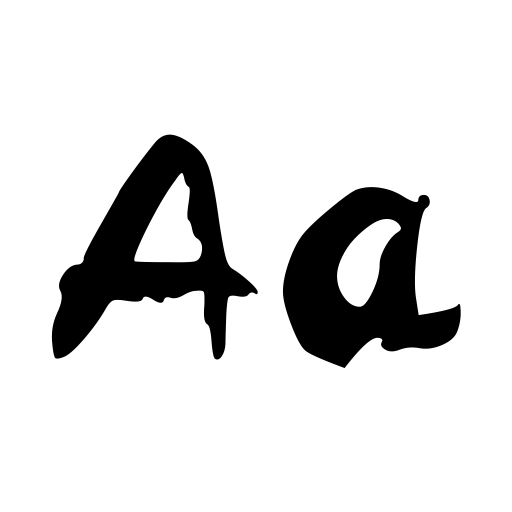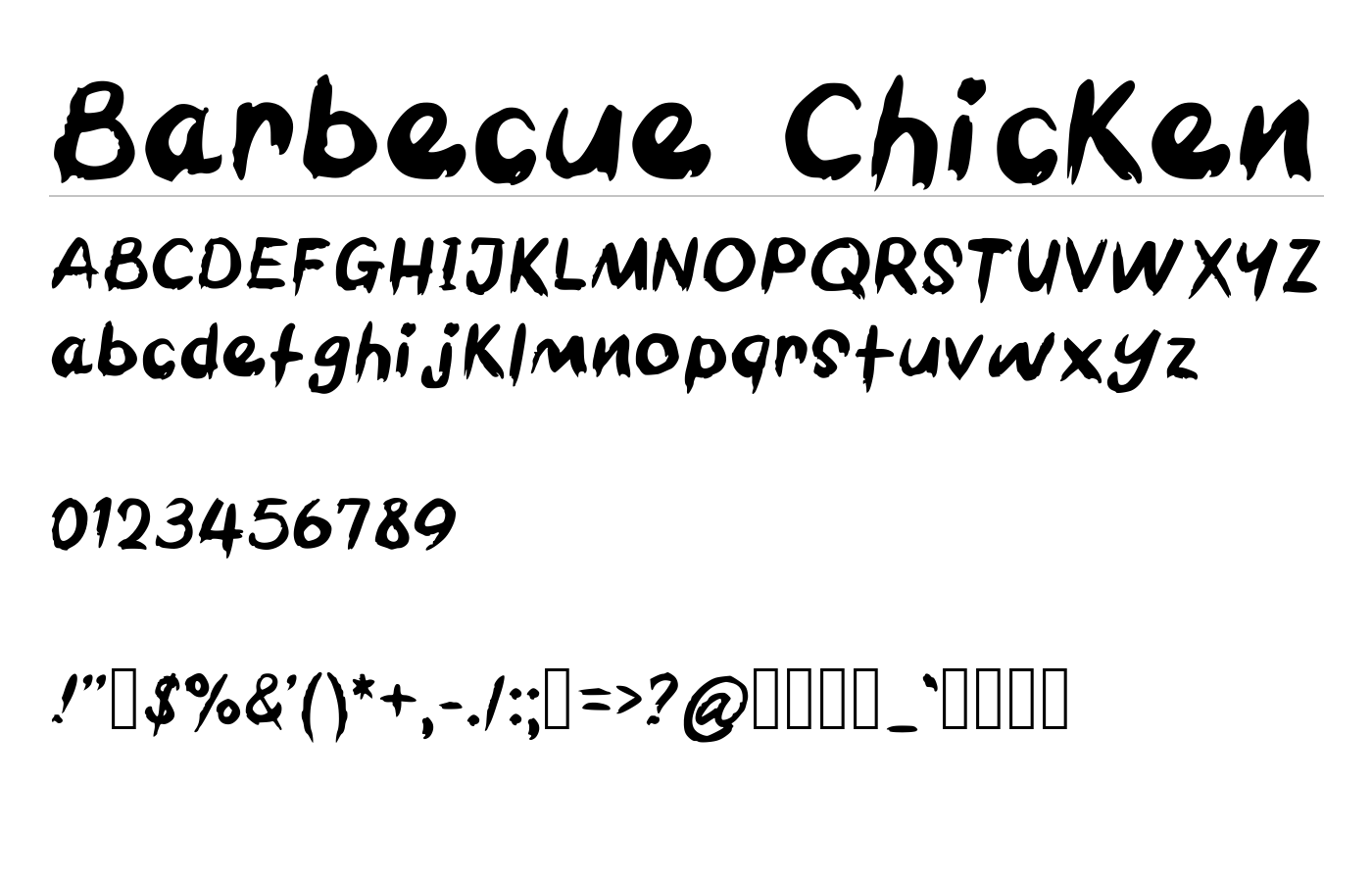
Barbecue Chicken is a playful, handwritten-style font with irregular, bold strokes that give it a casual and lively feel. Its uneven shapes and lively character make it perfect for fun, informal designs such as food packaging, event posters, or creative branding. This font brings a friendly, approachable vibe, ideal for projects seeking a touch of personality and charm.
Barbecue Chicken Font